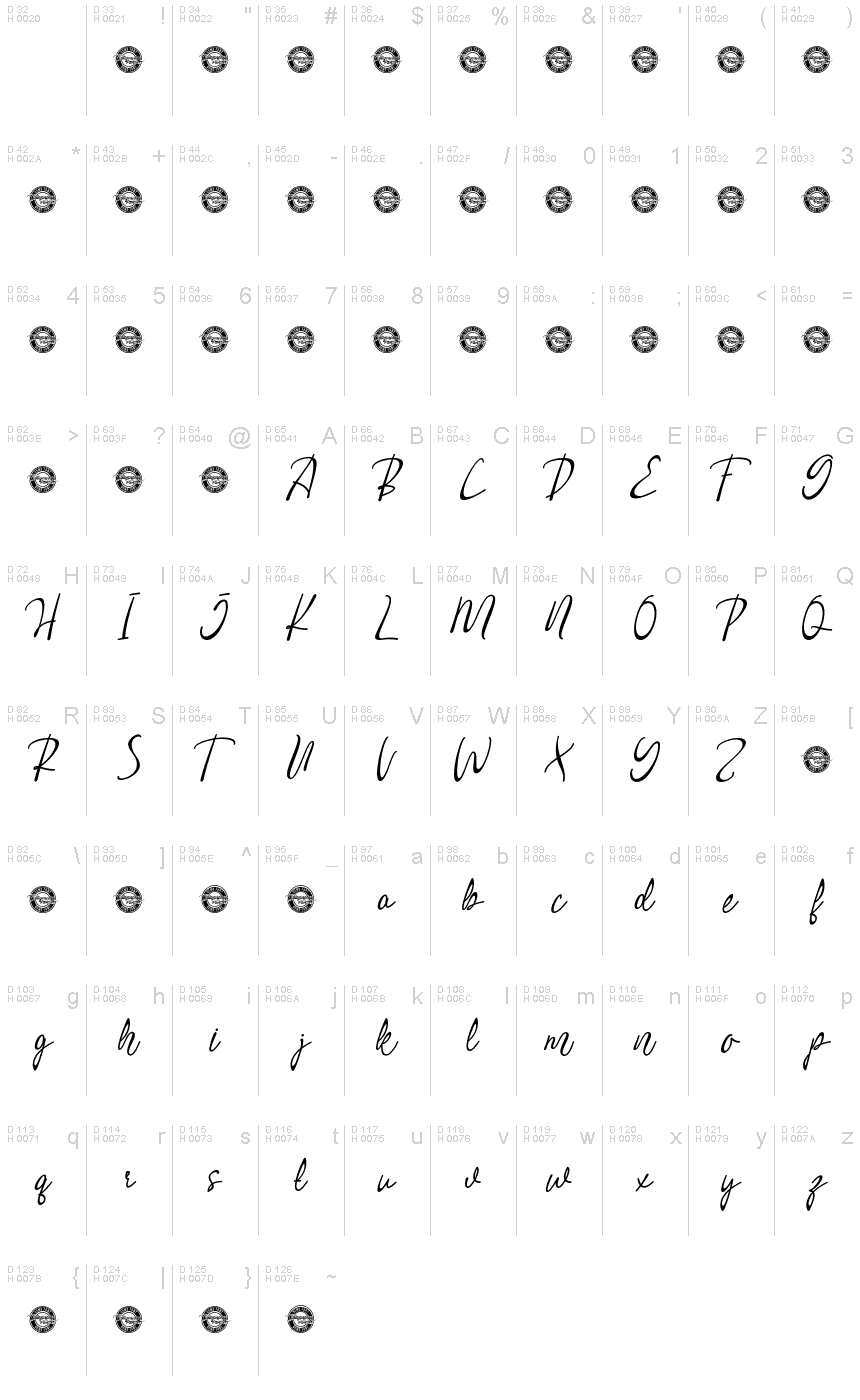
Romani Demo
Romani, a captivating creation by Calligraphy Fonts, is a semi-light handwritten font that exudes elegance and sophistication. With its delicate strokes and flowing curves, this font adds a touch of refinement to any project. Ideal for wedding invitations, greeting cards, and luxury branding materials, Romani lends an air of grace and charm to your designs. Its versatility also makes it suitable for fashion magazines, beauty blogs, and lifestyle websites. Allow Romani to elevate your creations with its timeless appeal and seamless readability. Let this exquisite font be the embodiment of your artistic vision.